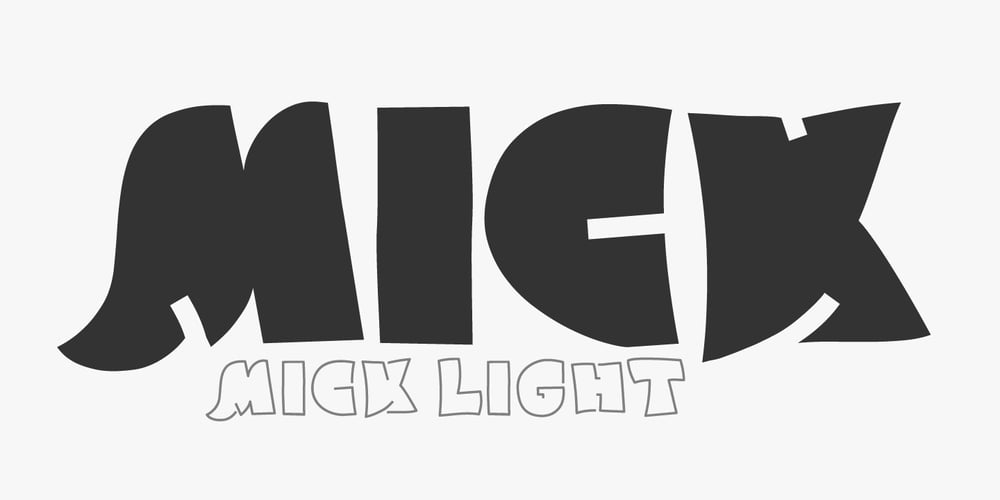
Mick
Mick font
Mick Font Family was designed by Oleg Stepanov and published by Oleg Stepanov. Mick contains 2 styles and family package options. Mick is a hand-drawn typeface inspired by graffiti works of old style. The family contains Regular and Light styles. Cyrillic and extented latin character sets.